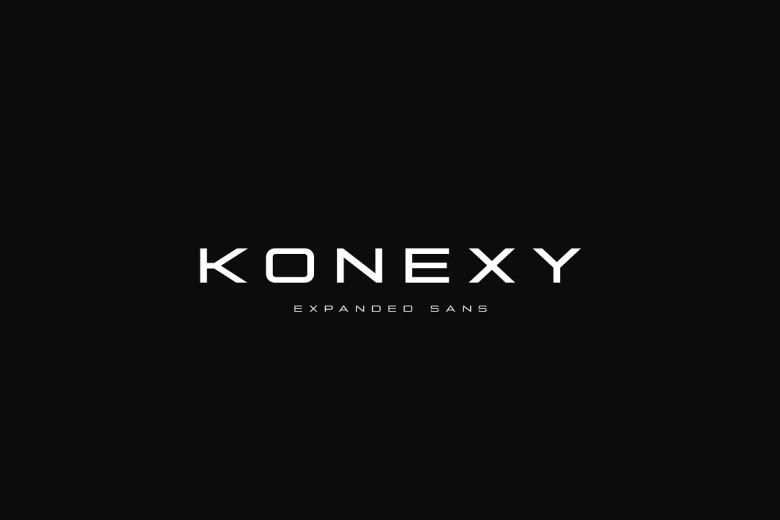
Konexy Font
Konexy is modern simple sans font with lowercase and uppercase letters to support the best legibility possible. It’s born from strong elementary shapes, with clean circles interwoven with modern cuts and sharp edges! Introducing Konexy Sans Serif Font.
Konexy Sans Serif is inspired by the trends in technology, automotive vehicles and sports nowadays. We crafted this font for your design project. It contains 322 glyphs, many stylistic alternates and multi-language support. You can easily create a cool logo, branding, and promotion with this font. Get it now!
Konexy Sans Serif Font